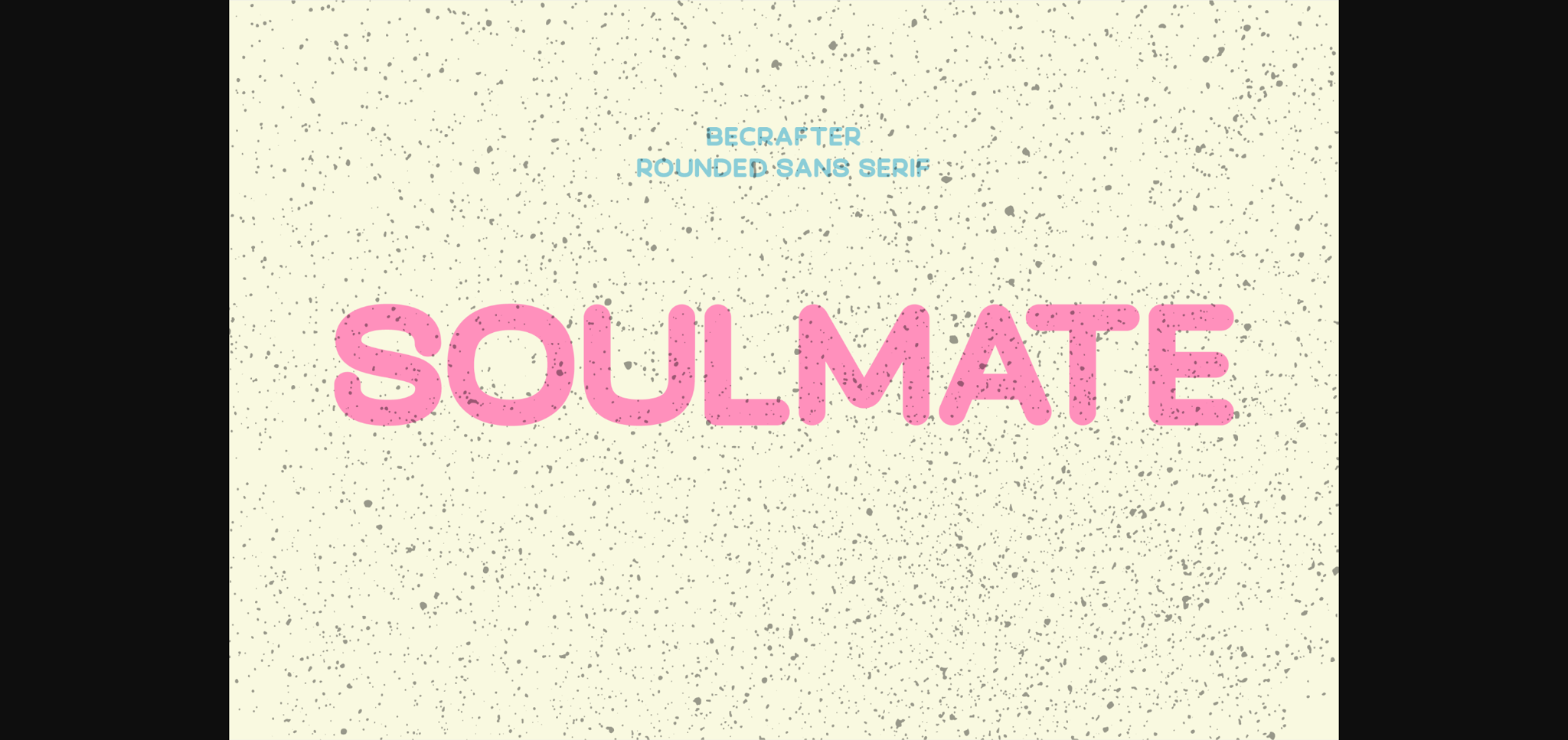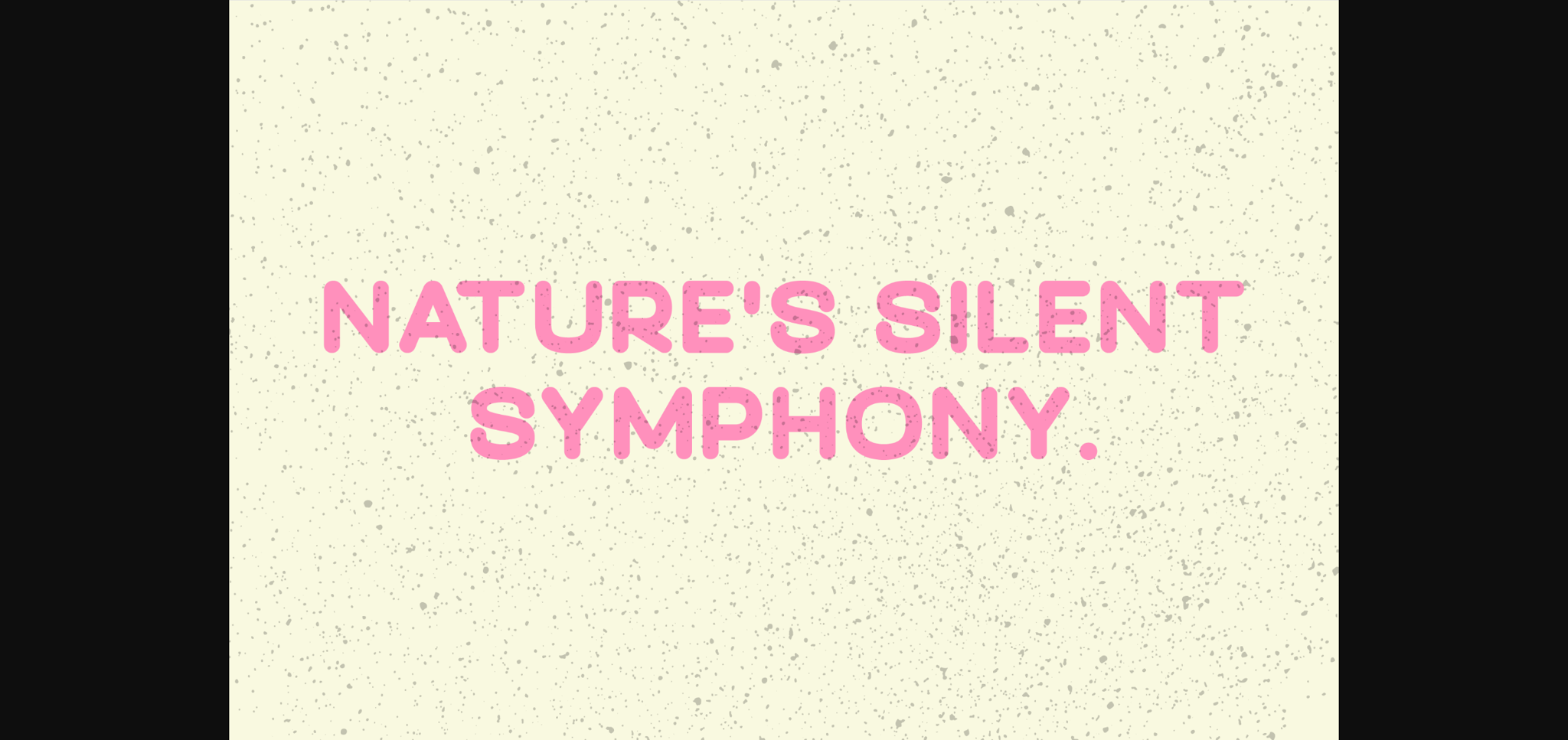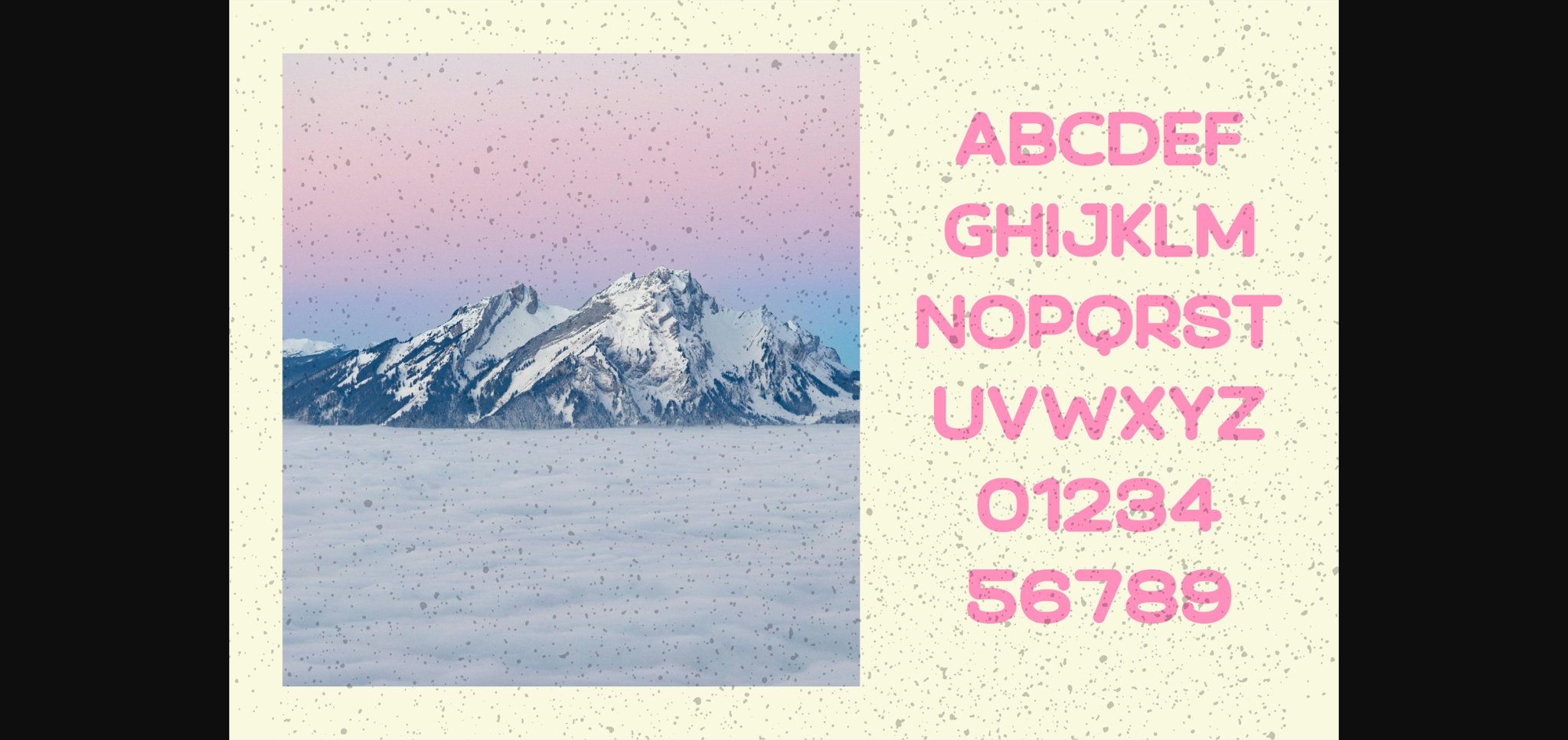
About Soulmate Rounded Font
Perfectly capturing the intersection of power and elegance, Soulmate Rounded is an exquisitely bold typeface that brings a vintage charm to every creation. Carving a unique personality with every uppercase letter, this sans serif font is a versatile cornerstone for every designer’s toolkit. With the added convenience of numbers and punctuation, it paves the way to intricately stunning logos, high-end printed materials and so much more. Wherever you find your inspiration, Soulmate Rounded is there to turn your vision into reality.